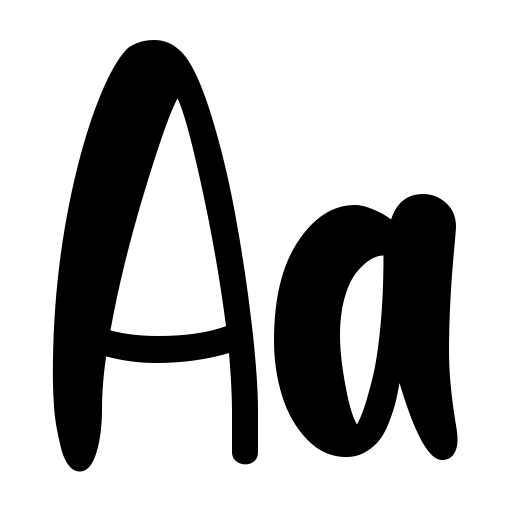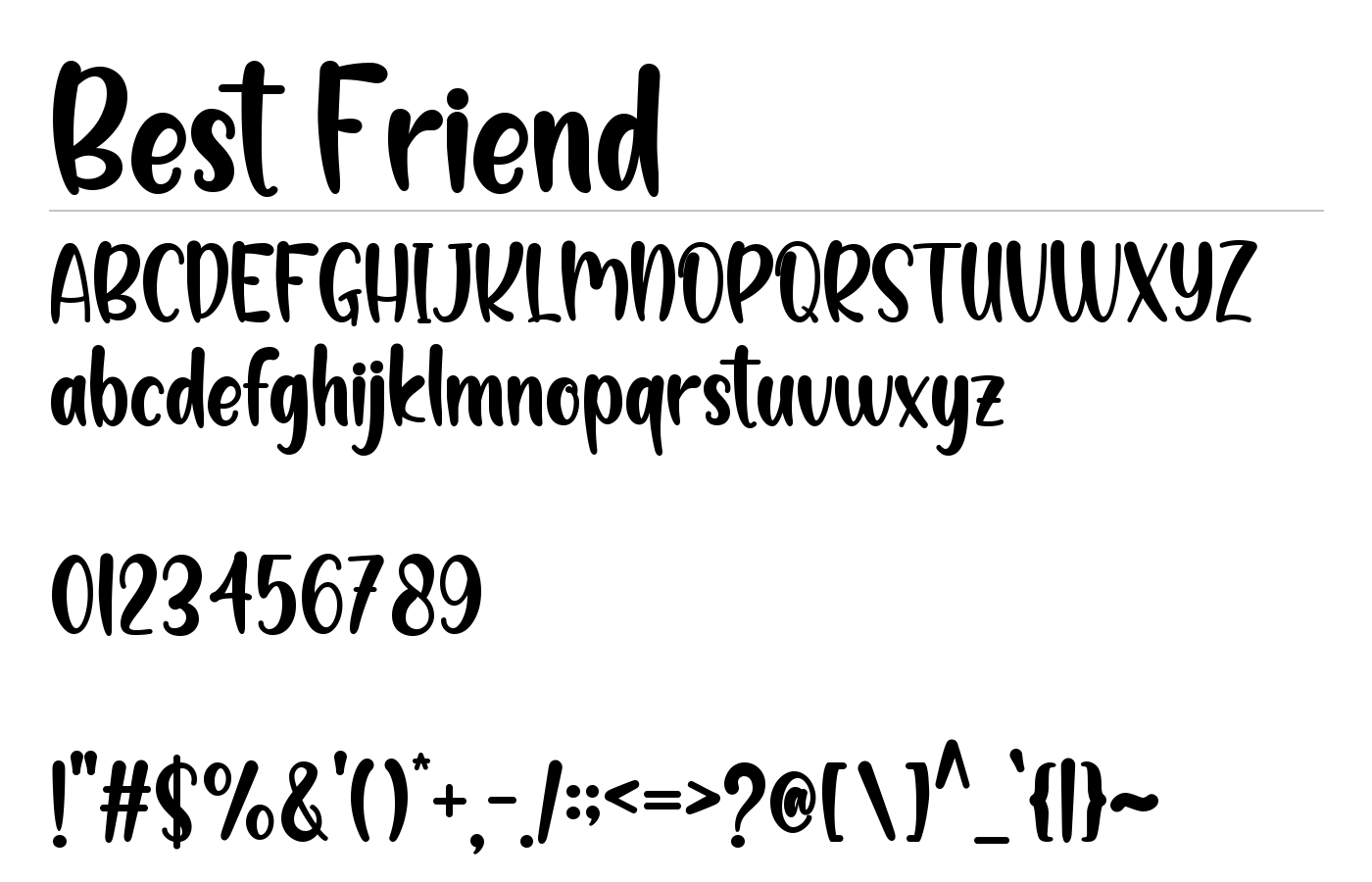
Best Friend Font is a playful and casual handwritten sans serif with a friendly, approachable vibe. Its medium weight, slightly condensed width, and smooth, rounded strokes make it perfect for fun, informal designs like greeting cards, children's books, and lifestyle branding. This font’s lively character and readability bring warmth and personality, making it ideal for projects that want to feel personal and inviting.
Best Friend Font
About Best Friend Font
| Font family | Best Friend Font |
| Designer | Risma Ramawi |